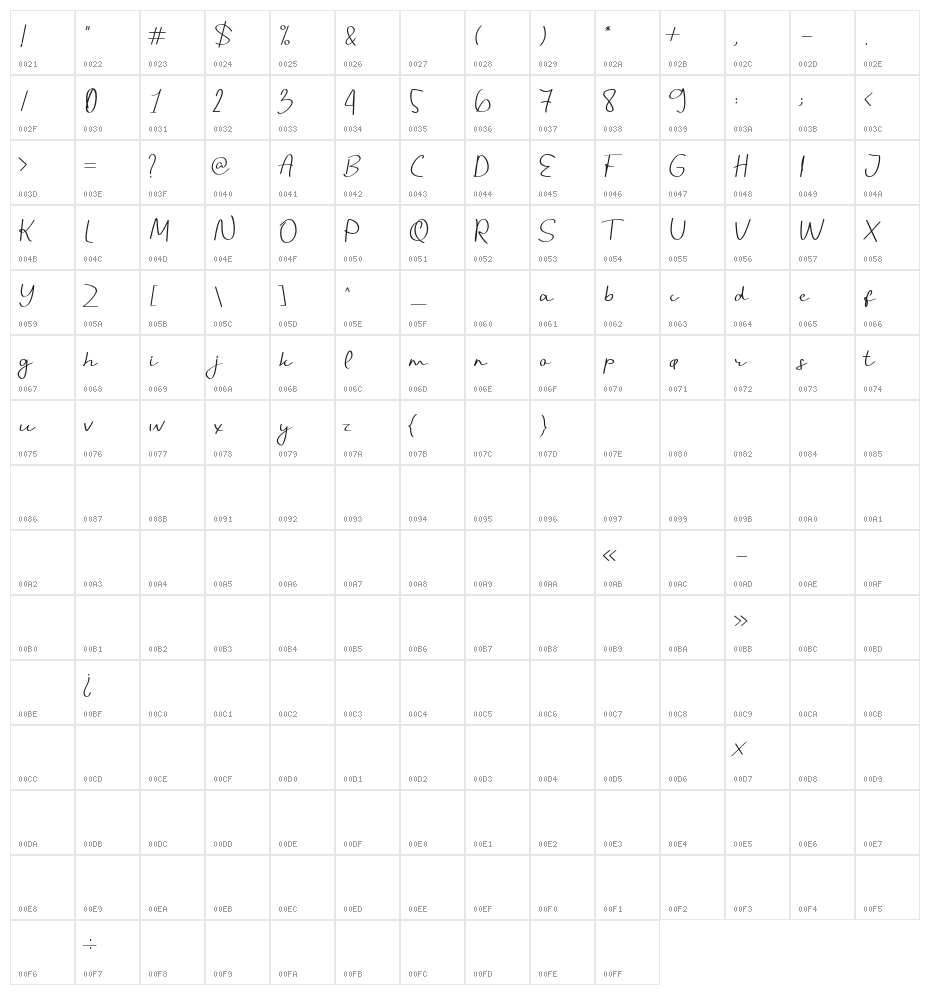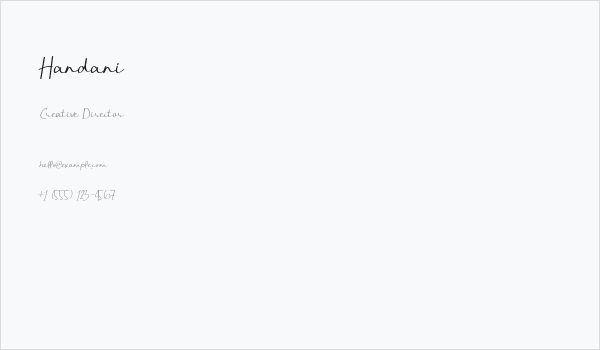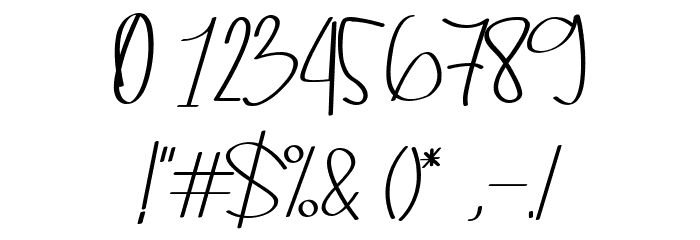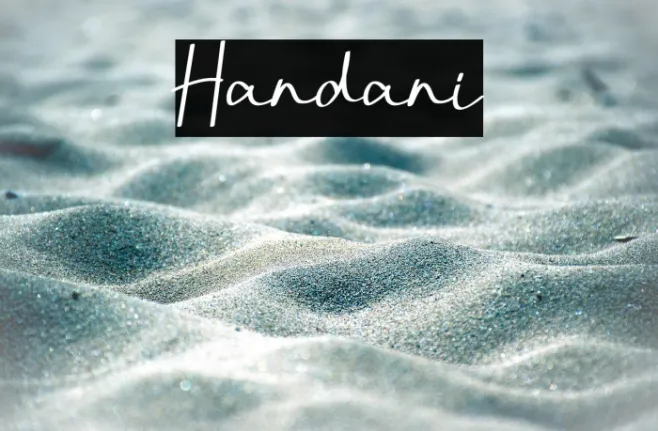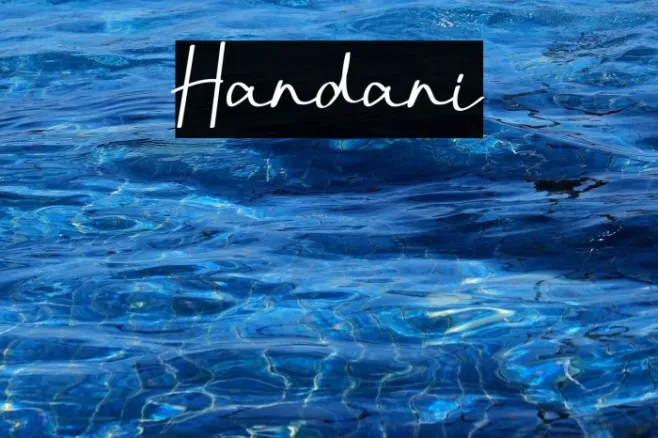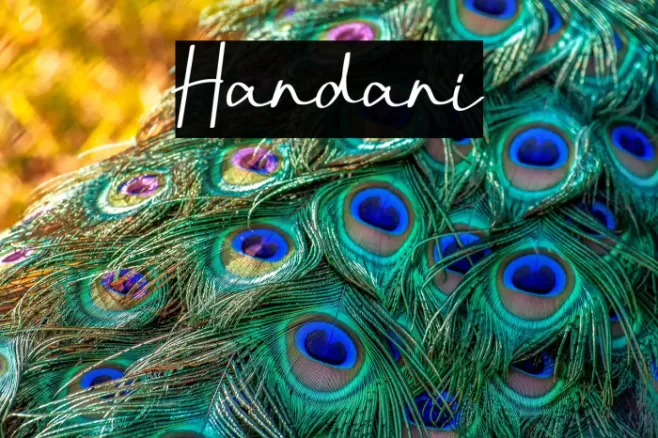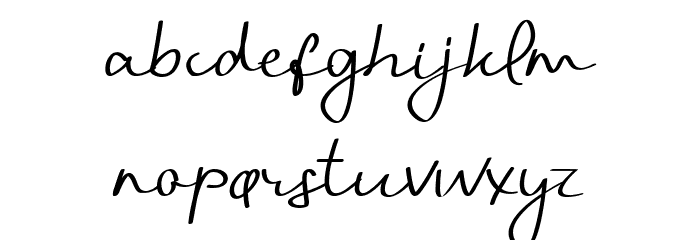
Handani Font
Handani Description
This font features a fluid, handwritten style with a playful and casual appearance. The uppercase letters are tall and slightly narrow, with a consistent stroke width that gives them a clean and modern look. The lowercase letters are more varied in height, adding a dynamic and lively feel to the text. The numbers are well-proportioned and maintain the same playful style as the letters. Special characters are distinct and integrate seamlessly with the overall design. This font is versatile, suitable for projects that require a personal touch, such as invitations, greeting cards, or branding materials.
| Proposed Projects | Ideal for invitations, greeting cards, branding, and personal projects. |